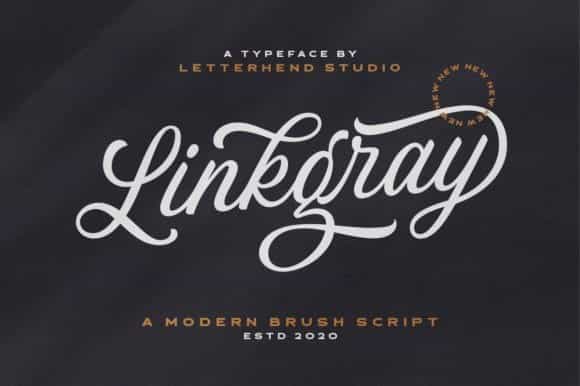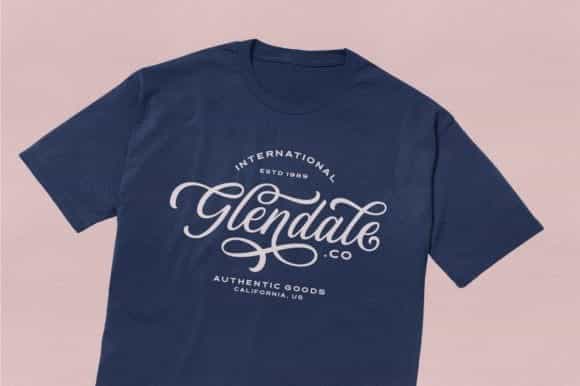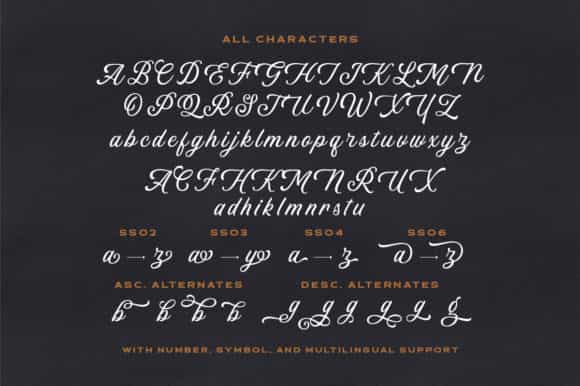
Linkgray is a stylish script font that has gorgeous swash, titling, and alternates. This font also user-friendly and its innovation touch of elegance and fashion for your design, making it suitable for various uses such as headings, signature logos wedding invitations t-shirt letterhead advertising photography store information labels in newspapers or on posters Badges etc.